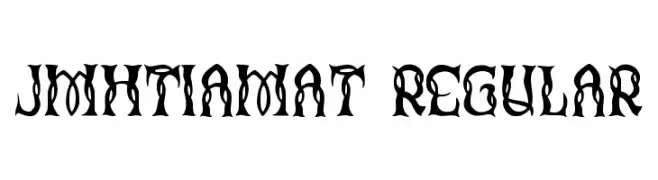
A bold, gothic-inspired decorative font with intricate embellishments.
A decorative, dagger-inspired font with a gothic and medieval aesthetic.
A bold, gothic-inspired font with sharp, angular lines and dramatic serifs.
A bold, gothic-style font with intricate, decorative elements.
A bold, gothic-style font with sharp, angular edges and dramatic flair.
A bold, blackletter-inspired font with sharp, angular lines and a gothic aesthetic.